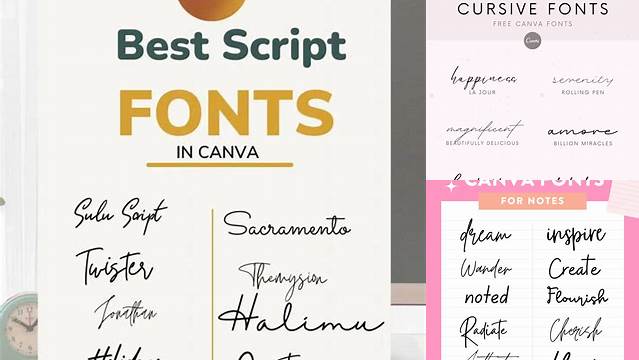
Free Cursive Fonts For Canva: The Ultimate Guide
Hey guys! Are you looking to add a touch of elegance and personality to your Canva designs? Well, you've come to the right place! In this guide, we're diving deep into the world of cursive fonts free Canva offers, plus some amazing alternatives and tips to make your designs stand out. Let's get started!
1. Understanding Cursive Fonts
So, what exactly are cursive fonts? Cursive fonts, also known as script fonts, mimic the flowing handwriting we all know and love. They connect letters in a stylish, fluid manner, adding a personal and elegant touch to any design. Think of wedding invitations, logos, or even social media graphics – cursive fonts can elevate your visuals and convey a specific mood or message.
The history of cursive fonts is fascinating, tracing back to traditional calligraphy and handwriting styles. Over time, these styles have been digitized, offering a wide range of options for designers. From classic and formal scripts to modern and playful ones, there’s a cursive font for every project. Using cursive fonts free Canva provides can really make your work shine.
When choosing a cursive font, consider the overall tone and purpose of your design. A formal event invitation might call for a sophisticated script, while a blog post about fun summer activities could benefit from a more casual and whimsical typeface. Also, pay attention to readability. While cursive fonts are beautiful, they can sometimes be tricky to read, especially in smaller sizes. Always prioritize clarity and ensure your message is easily understood.
2. Top Free Cursive Fonts in Canva
Canva offers a fantastic selection of free cursive fonts that can transform your designs. Let’s take a look at some of the top contenders. These cursive fonts free Canva are great, trust me!
Great Vibes
Great Vibes is a beautifully flowing script font that exudes elegance and sophistication. It's perfect for wedding invitations, greeting cards, and other formal designs. Its clean lines and graceful curves make it highly readable while maintaining a touch of class. Imagine using it for a personalized thank-you note or a stylish header on your website. The versatility of Great Vibes ensures it will quickly become a staple in your design toolkit. It's one of the most popular cursive fonts free Canva offers.
Pacifico
Pacifico is a fun and friendly cursive font inspired by the American surfer culture of the 1950s. Its rounded letterforms and playful bounce add a touch of whimsy to any design. Use it for blog headers, social media graphics, or even t-shirt designs. Pacifico is especially effective when paired with bold colors and eye-catching graphics. This font brings a sense of nostalgia and carefree spirit to your projects, making it ideal for designs that aim to evoke joy and relaxation. Give cursive fonts free Canva like Pacifico a shot!
Dancing Script
Dancing Script is a modern and casual script font that adds a touch of personality to your designs. Its varying letter sizes and playful rhythm create a dynamic and engaging effect. Perfect for informal invitations, blog post titles, and social media updates, Dancing Script is versatile and fun. The font's unique character makes it stand out, adding a personal touch to your projects. It's a great choice for designs that need a friendly and approachable feel. Using cursive fonts free Canva like Dancing Script can create that vibe.
3. Exploring Other Free Cursive Font Resources
Google Fonts is a treasure trove of free, high-quality fonts. It offers a diverse selection of cursive fonts, ranging from elegant scripts to playful hand-lettered styles. The best part? All fonts are open-source, meaning you can use them for personal and commercial projects without any licensing restrictions. Simply download the fonts, upload them to Canva, and start creating stunning designs. With its vast collection and ease of use, Google Fonts is an indispensable resource for any designer looking to enhance their font library. Using cursive fonts free Canva plus external options gives you a huge leg up!
Font Squirrel is another fantastic resource for finding free fonts. It specializes in curating high-quality, commercially licensed fonts that are free to use in your projects. This means you can confidently use these fonts in your client work without worrying about copyright issues. Font Squirrel's user-friendly interface makes it easy to browse and discover new fonts. The site also offers helpful font pairing suggestions, making it even easier to create visually appealing designs. For designers seeking professional-grade fonts without the hefty price tag, Font Squirrel is an invaluable tool. Complementing cursive fonts free Canva with those from Font Squirrel is a great idea.
DaFont is a popular website that offers a vast collection of free fonts, including a wide variety of cursive styles. While the quality of fonts on DaFont can vary, it's still a great resource for discovering unique and quirky typefaces. Be sure to carefully review the license agreement for each font before using it, as some fonts may only be free for personal use. Despite the licensing considerations, DaFont's extensive collection and easy-to-navigate interface make it a valuable resource for designers looking to expand their font options. Just be sure to pair these finds wisely with cursive fonts free Canva already provides.